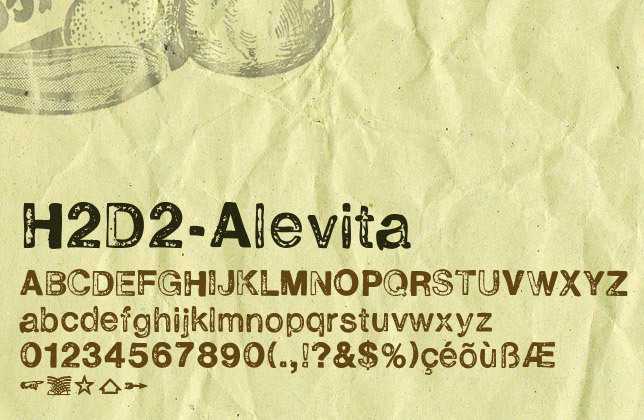
H2D2-Alevita Rough by morph is a free eroded display font with broad, dense, uneven letterforms and a hard-cut, handmade silhouette. Its roughness comes from torn-looking gaps, scratches, and scattered chips that break into the solid strokes. The damage feels deliberately unruly.
Urban decay and DIY music culture make a convincing subject for gig posters, album packaging, and streetwear graphics, since the distressed cuts can echo ripped paper or scuffed paint. Its rough, forceful lettering also fits skate merchandise and event branding aimed at audiences drawn to punk, industrial, or underground aesthetics.